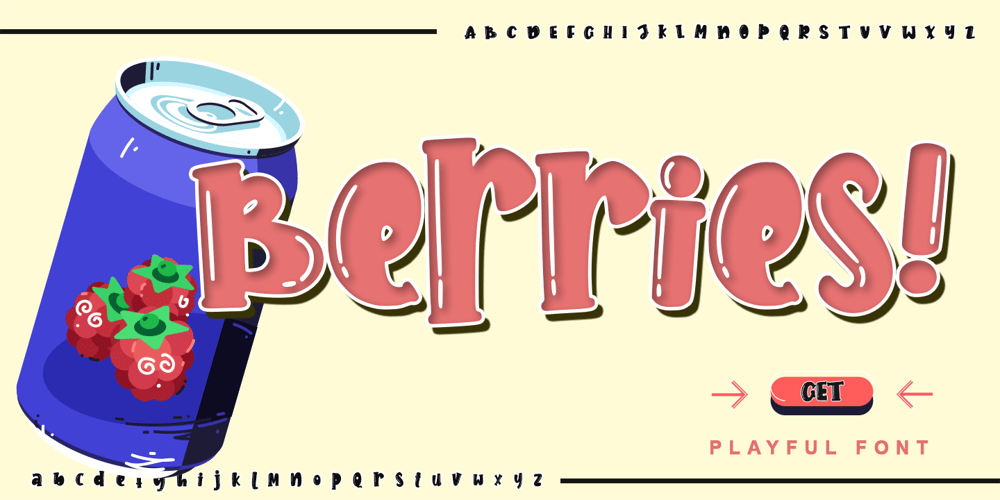
Berries
Berries font
Berries Font Family was designed by Thomas Aradea and published by Letterara. Berries contains 1 styles and family package options. Berries is a cute and sweet handwritten font with an incredibly friendly feel. Get inspired by its playful feel! This font is PUA encoded which means you can access all of the cute glyphs with ease! It also features a wealth of special features including alternate glyphs and ligatures.